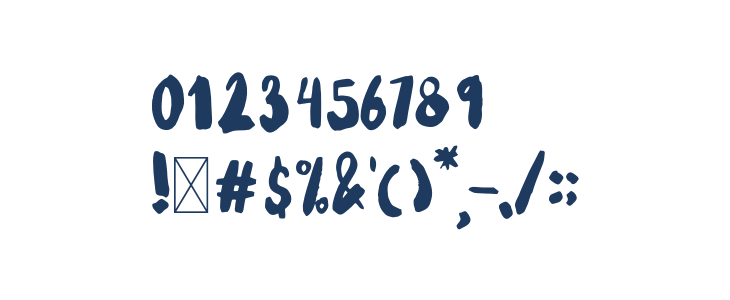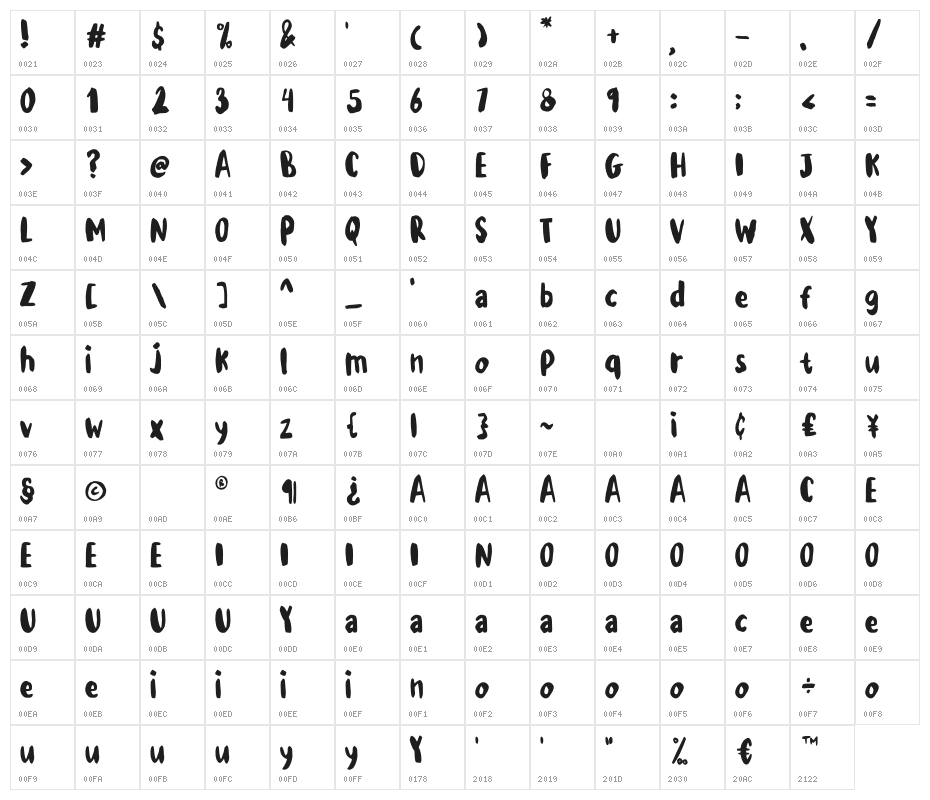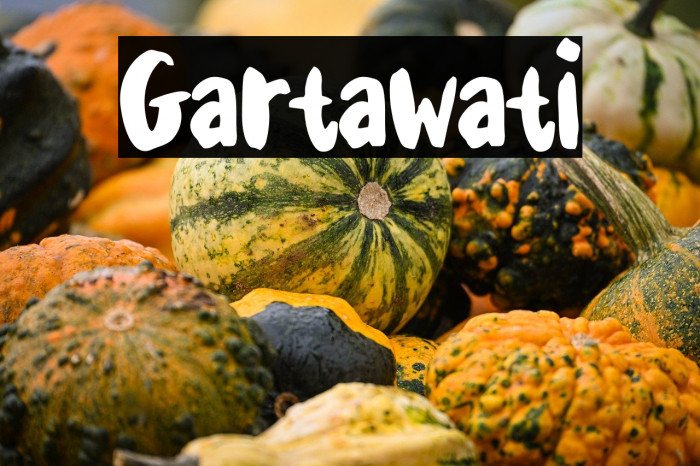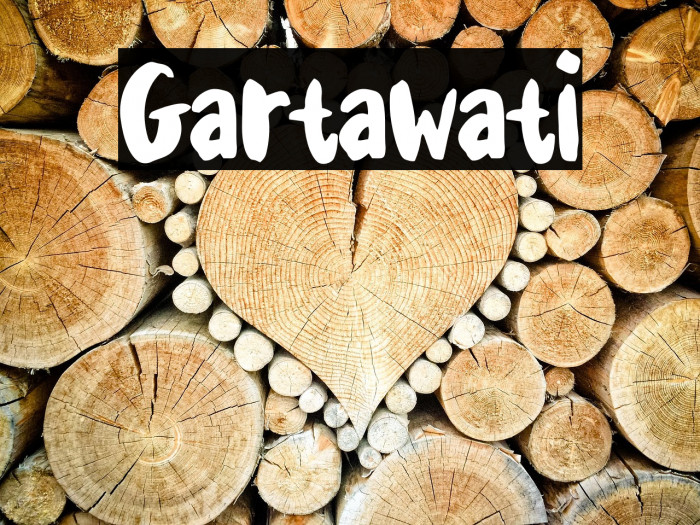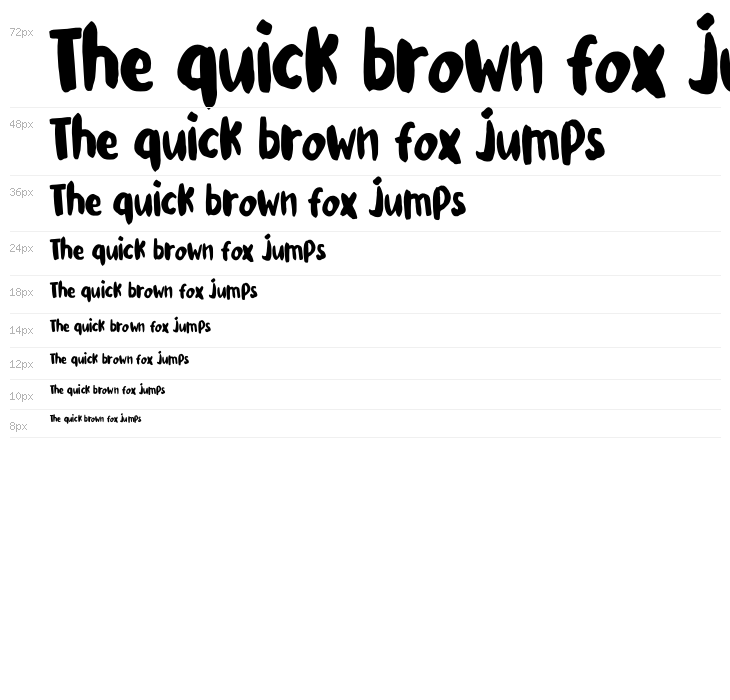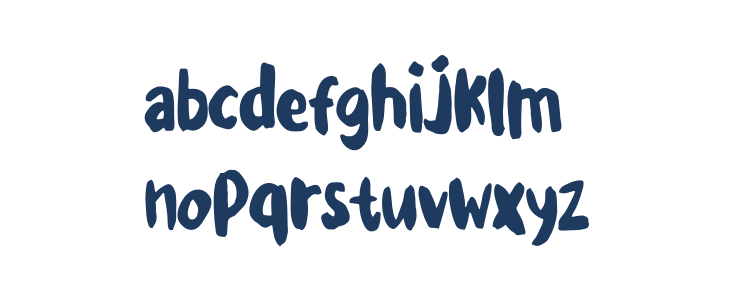
Gartawati Font
Gartawati Description
This font features a bold and expressive handwritten style, characterized by its thick, brush-like strokes and dynamic curves. The letters are slightly irregular, giving it a playful and artistic feel. The uppercase and lowercase letters maintain a consistent weight, contributing to its bold appearance. Numbers and special characters follow the same stylistic approach, ensuring uniformity across the font. This font's energetic and informal nature makes it suitable for creative projects that require a personal touch.